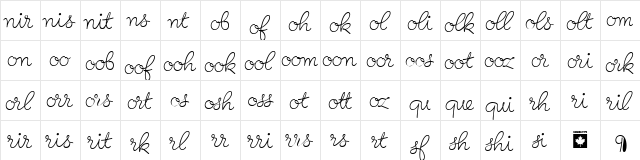
Birthday Ligatures Four Regular
Design Context for Birthday Ligatures Four Typeface
Birthday Ligatures Four takes a measured approach to typography — its balanced proportions and neutral character make it a reliable workhorse for both digital and print work.